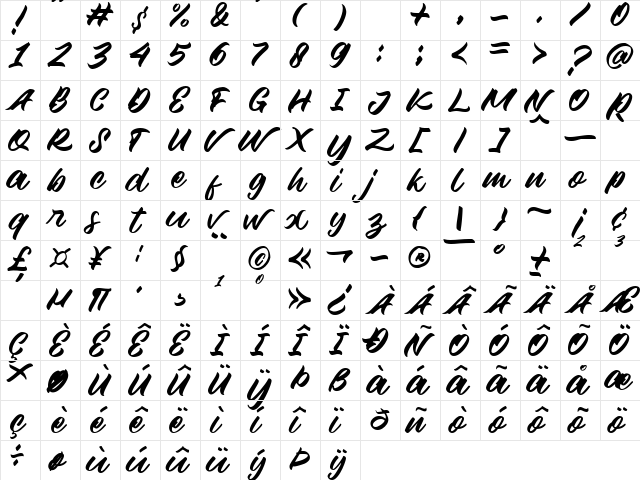
Millano Script Regular
| Designer | (MJB Letters). 2020. (Muhammad Mujibulloh) |
Design Context for Millano Script Typeface
Millano Script flows with the natural rhythm of handwritten lettering, making it ideal for designs that call for warmth and personal expression.
Font Pairing: Combine Millano Script with a simple geometric sans for maximum contrast — the tension between flowing curves and clean structure is a classic typographic pairing.
Pro Tip: Pair Millano Script with a clean sans-serif for supporting text. The contrast between fluid script and geometric structure creates an elegant typographic hierarchy.